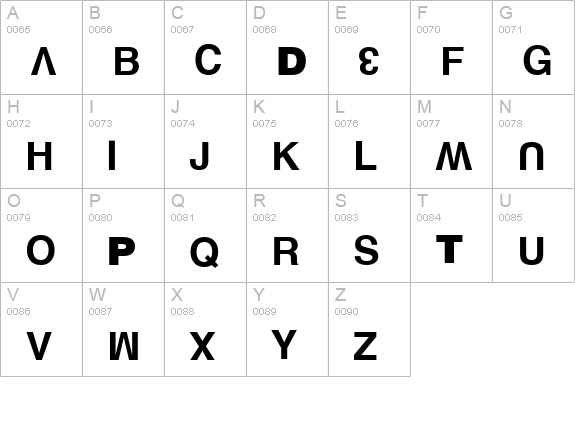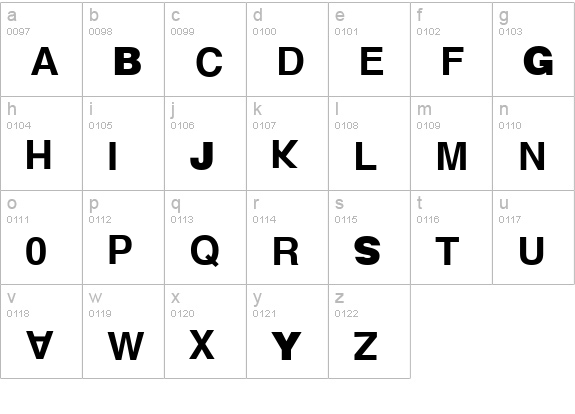
Fast Food Clean Font Details
Fast Food Clean font is a sleek and modern typeface perfect for adding a touch of sophistication to your designs. With its clean lines and bold lettering, this font exudes a sense of speed and efficiency, making it an ideal choice for any fast food-related project. Whether you're designing a menu, flyer, or logo, Fast Food Clean font will help you convey a sense of urgency and excitement. Best of all, Fast Food Clean font is completely free to download at FontsMarket.com. This means you can easily add this stylish font to your collection without breaking the bank. So why wait? Download Fast Food Clean font today and take your designs to the next level!